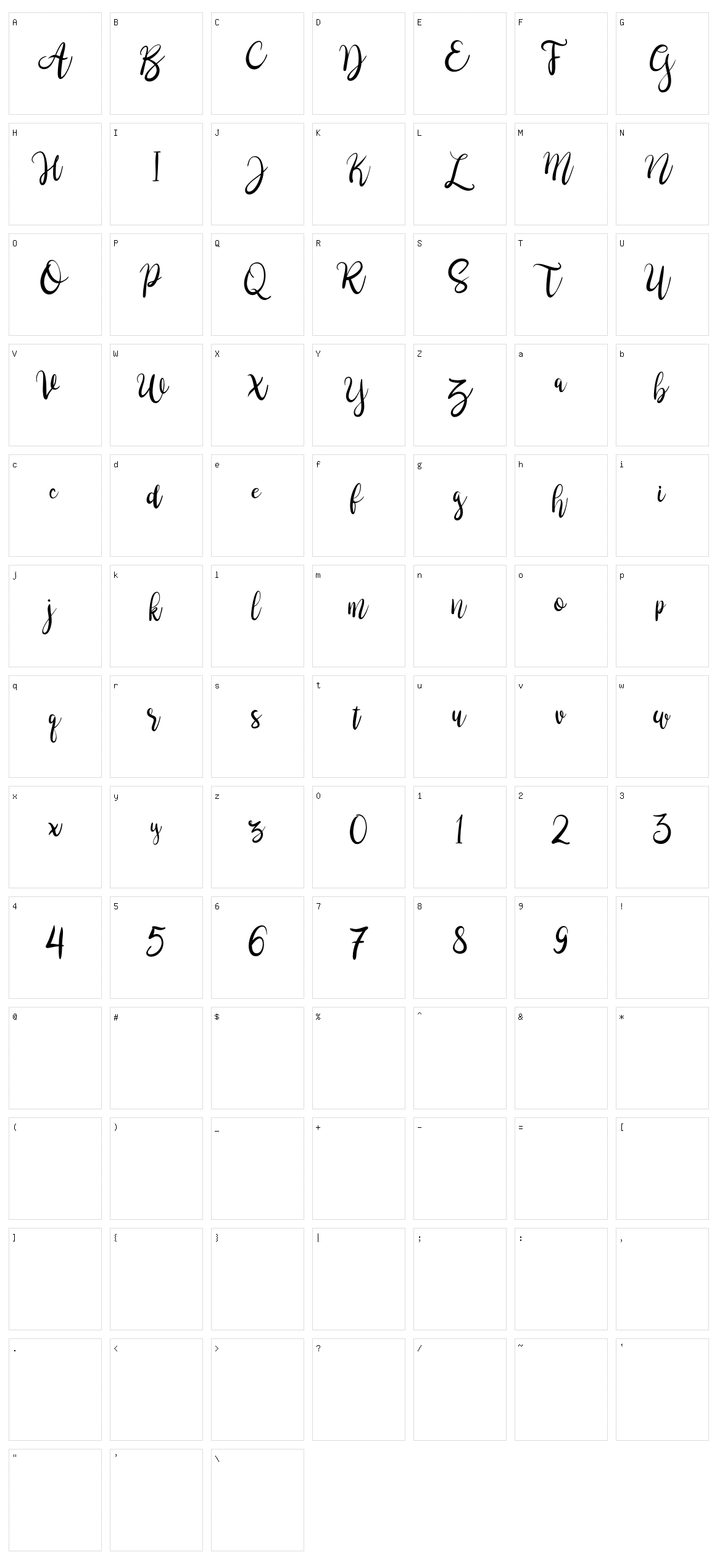
introducing brushgyo duo brother typeface.
yeah… duo brothers because they are both very suitable if combined for your designs. For brushgyo regular it’s embrace modern script and brushgyo brother can be said to belong to handwriting sans serif.
brushgyo duo brother perfectly suited for logotype design, lettering wedding couple name, menu foods design, t-shirts design and others. font is worthy of being one of a collection of your fontbook because to have a unique character, handwriting and modern style.